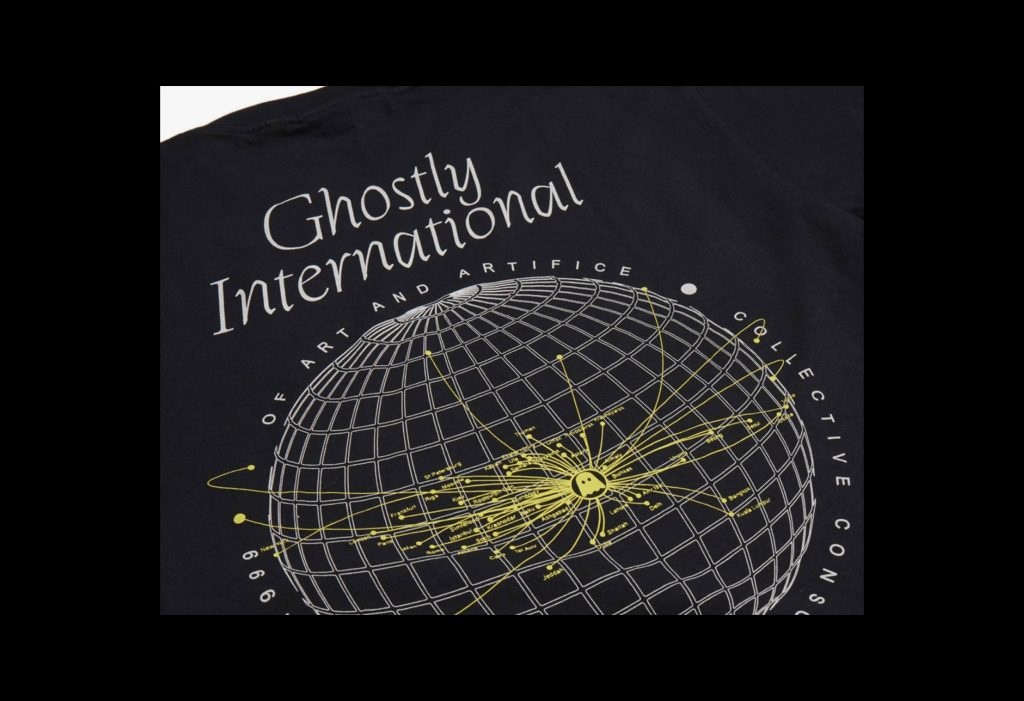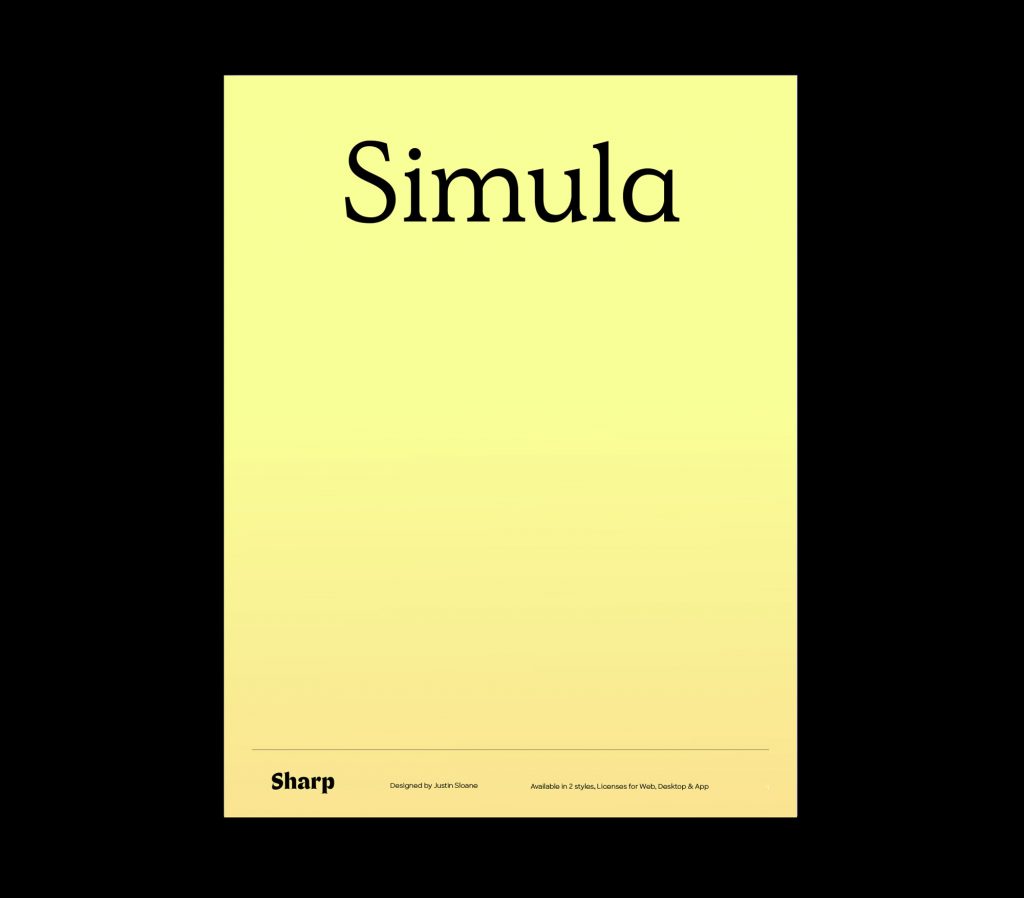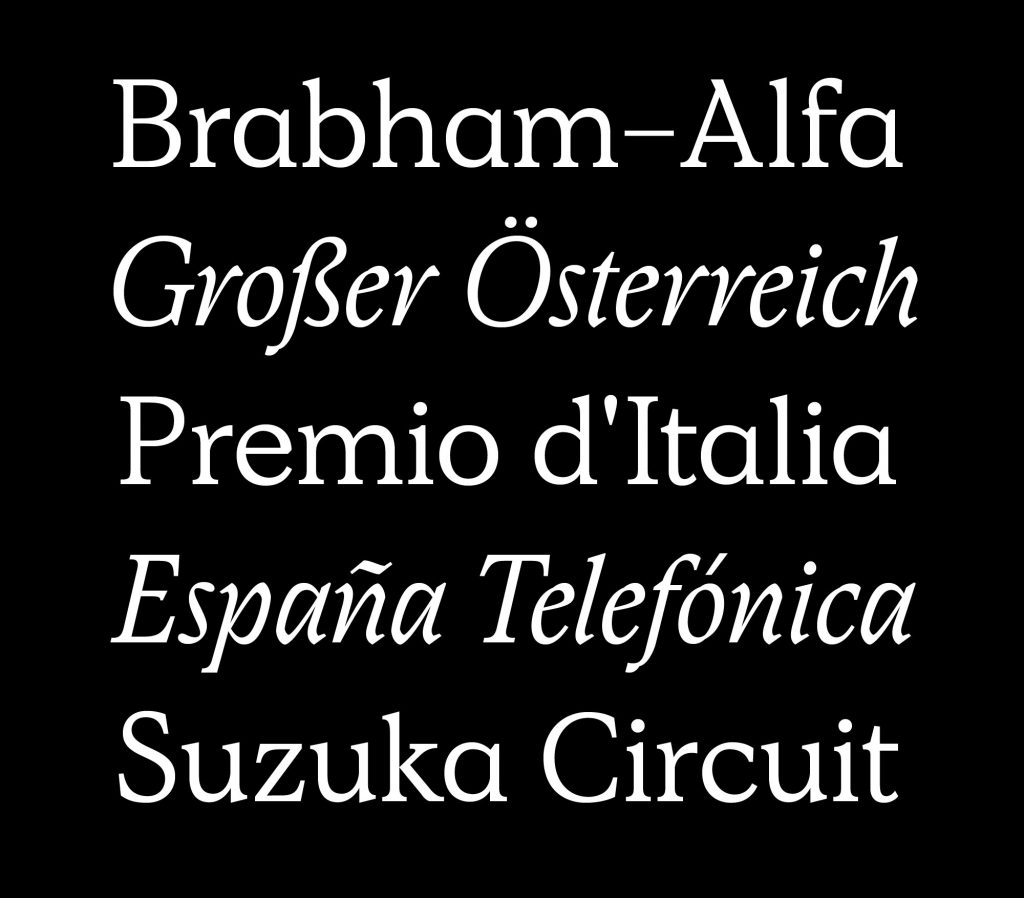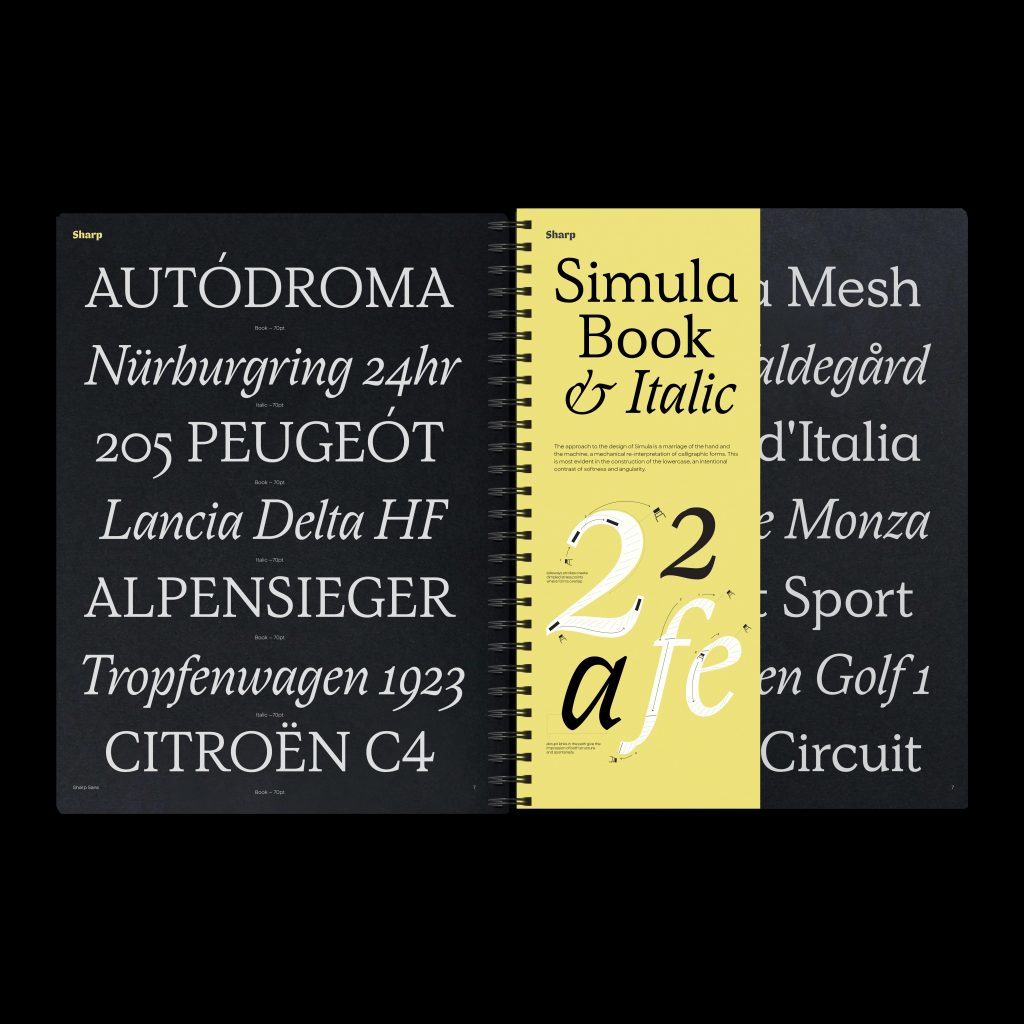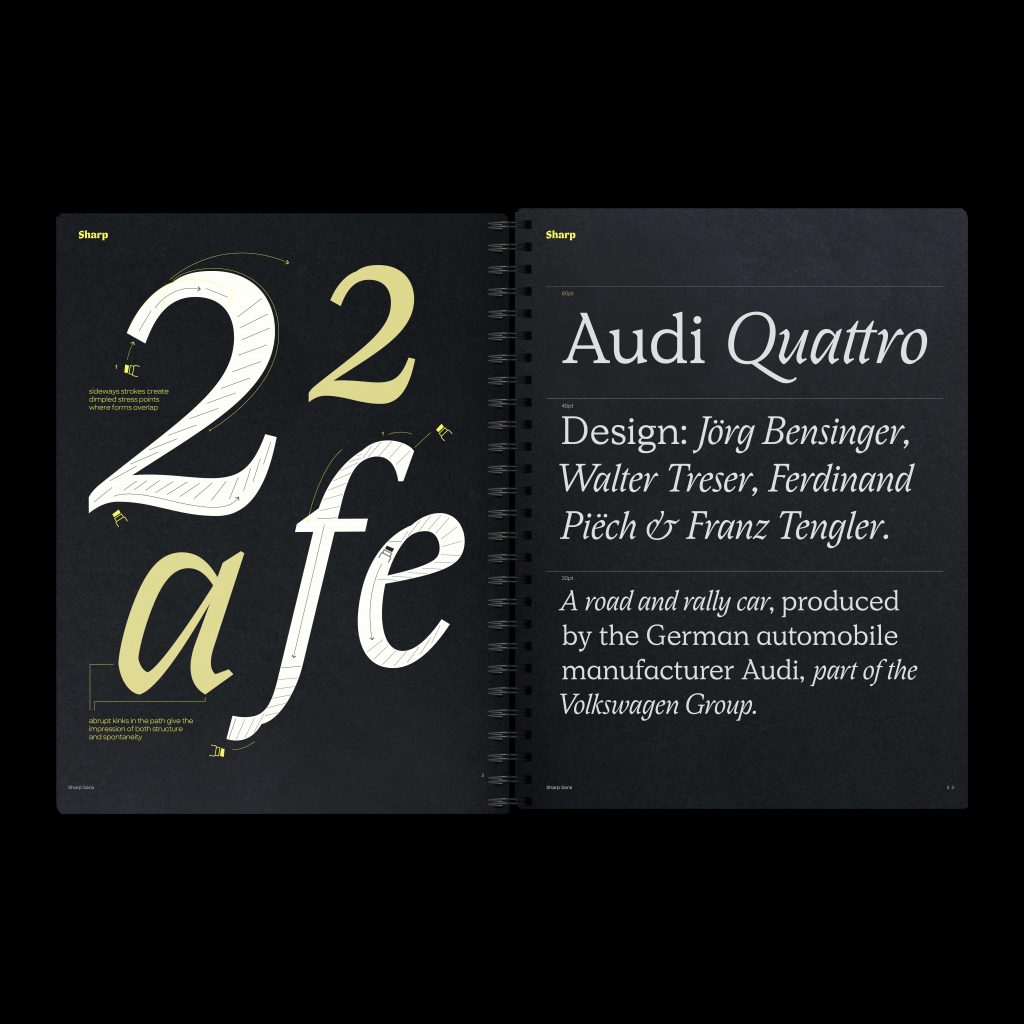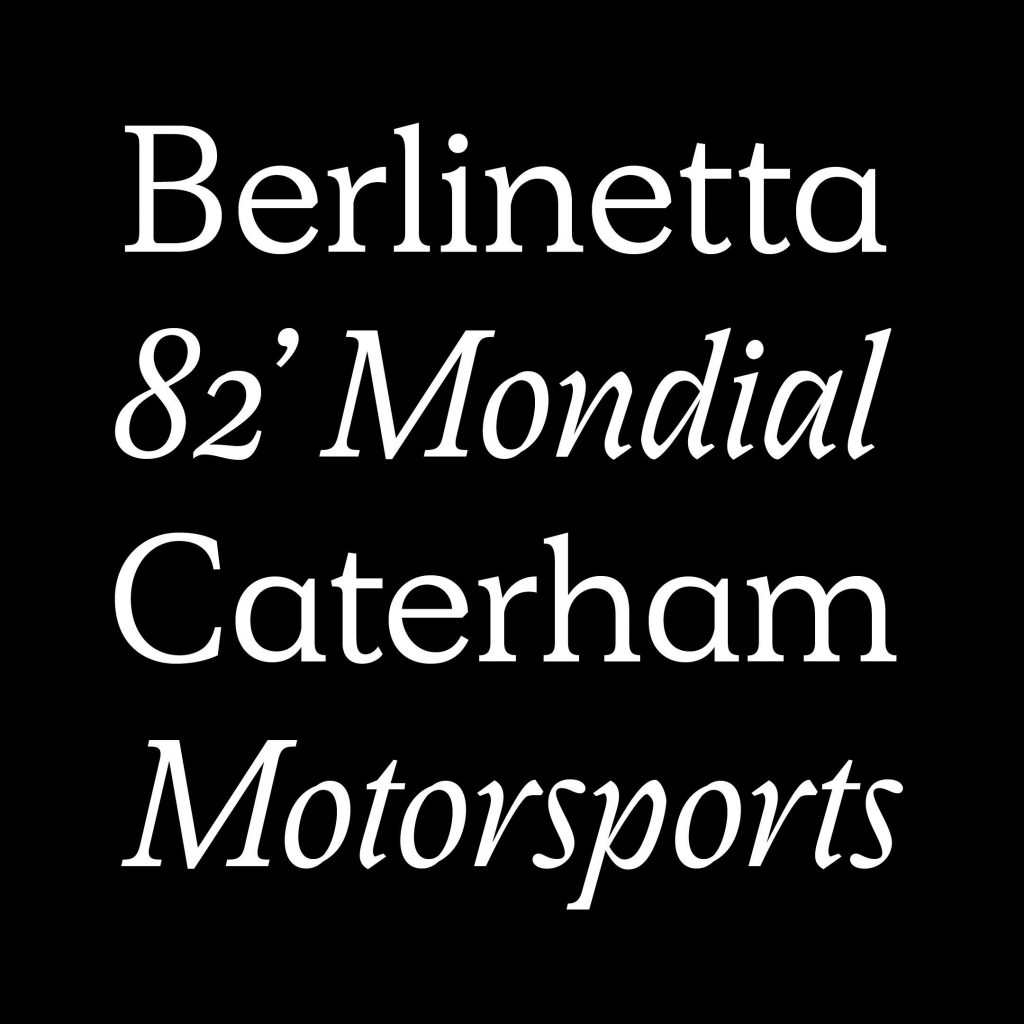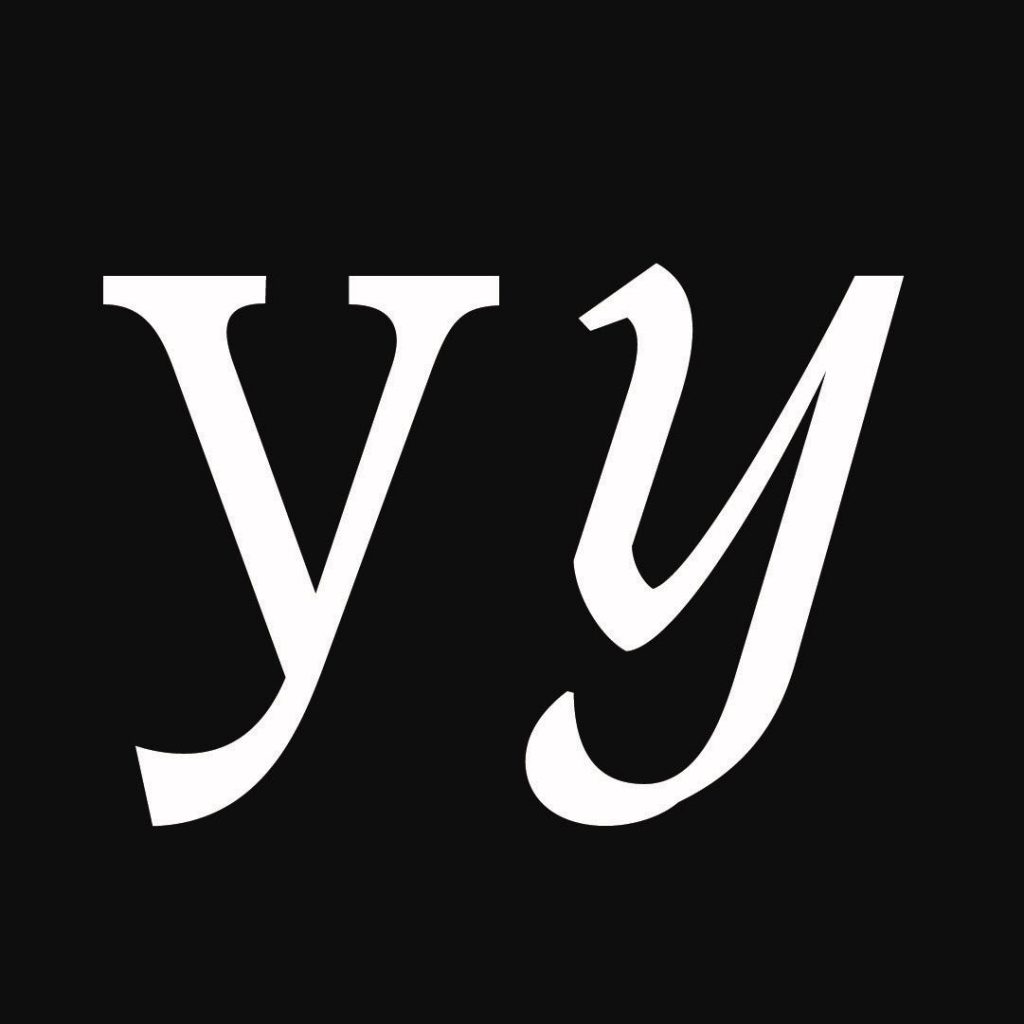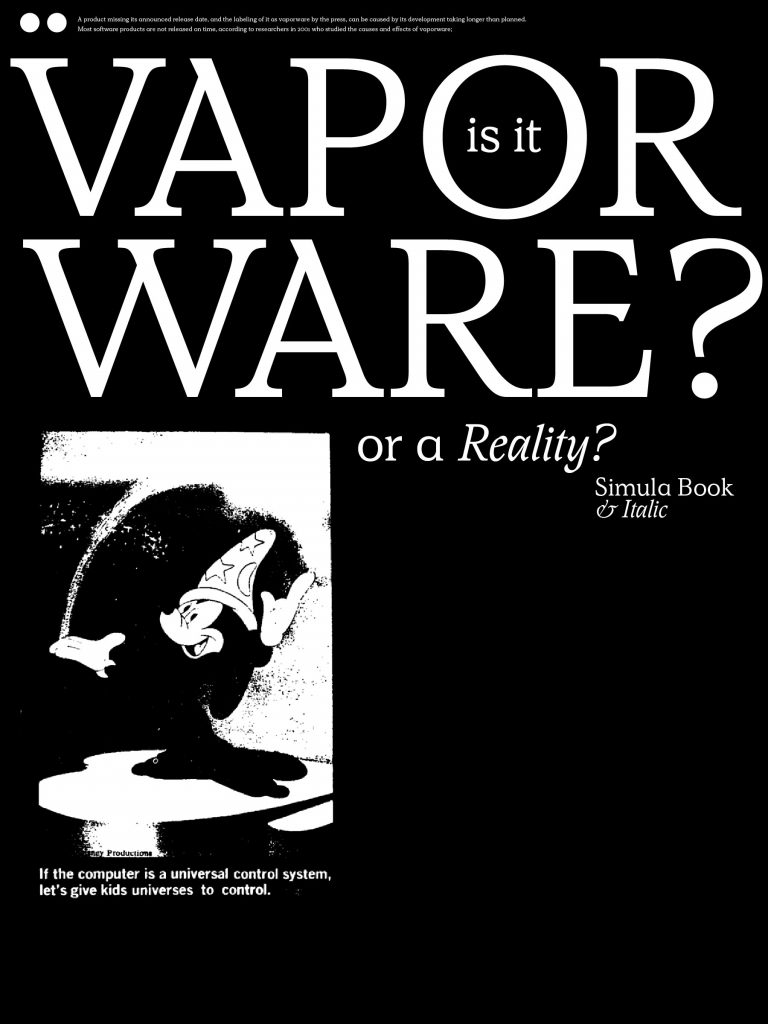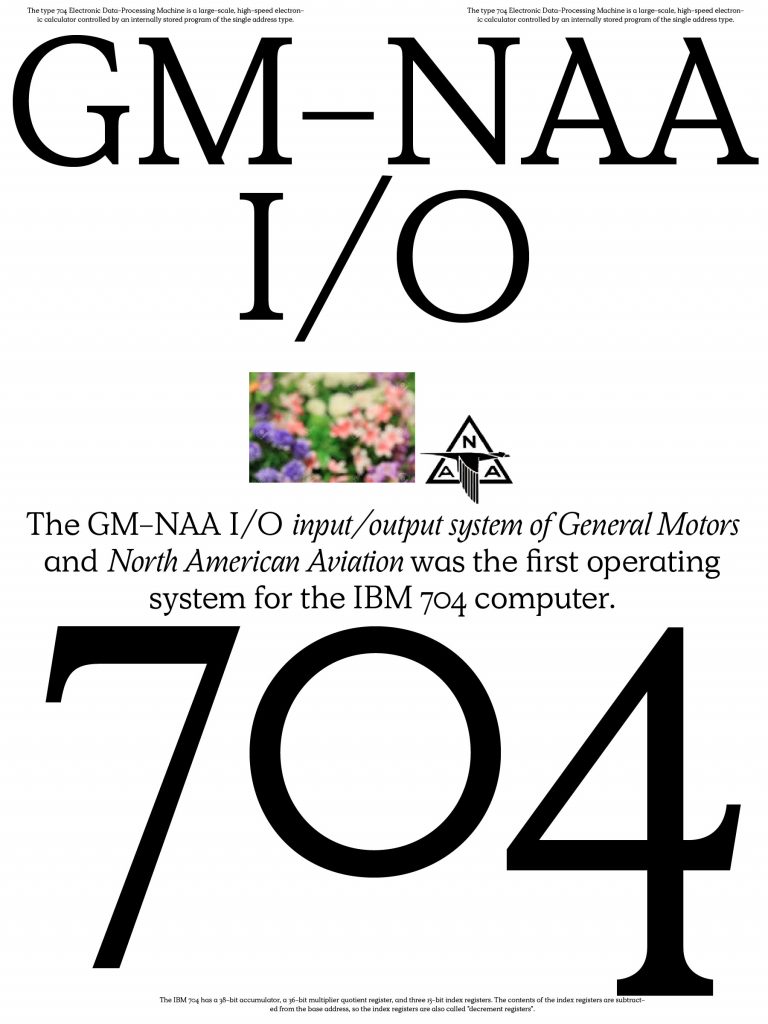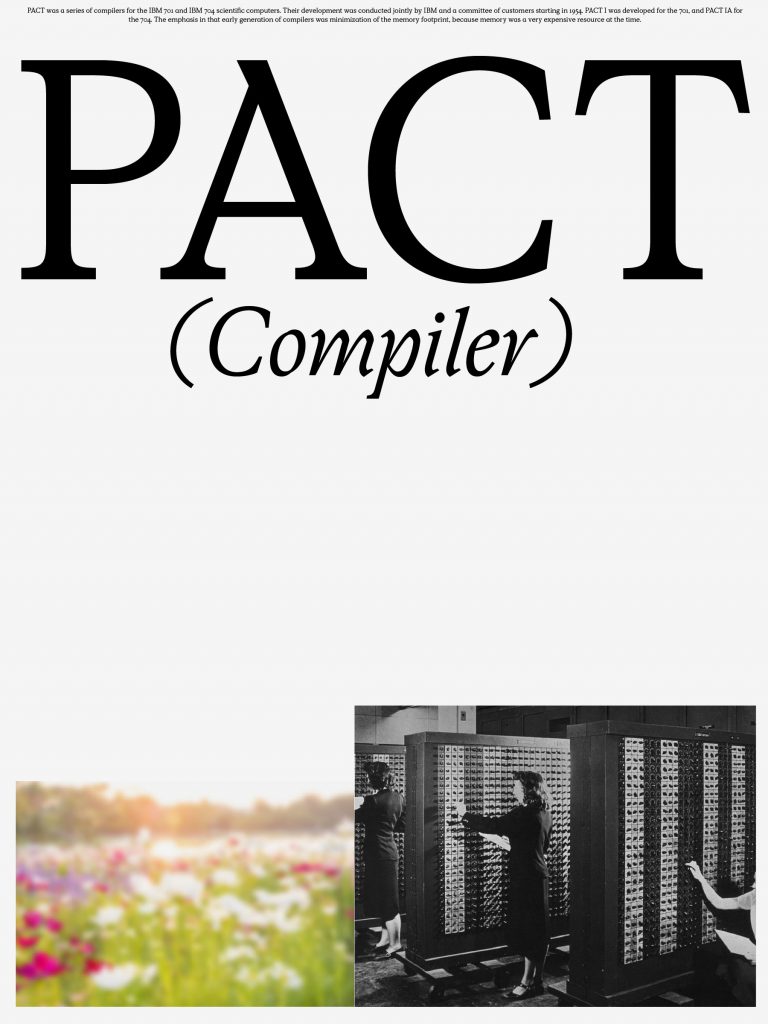
Name: Simula
Designer: Justin Sloane
Foundry: Sharp Type
Release Date: October 2019
Back Story: Justin Sloane was at a family reunion in Oregon, pinned up inside due to a forest fire, when he first started drawing Simula. The development of the full typeface, released this month from Sharp Type, is a lesson in endurance—Sloane worked on it during early mornings for years, as a “meditative thing,” using it in posters and various design projects at different phases. He put it on a T-shirt for record label Ghostly, created different specimens, lent it out to friends. “I used it as a vehicle to start learning how to draw typefaces,” he says. “I’ve done custom type and have dealt with letterforms a lot, but in dealing with type as a system and optimizing it for other people to use—I had to figure all of that stuff out.”
Sloane is a graphic designer who designed, among many other things, the Sharp Type identity and website. When it comes to type design, he considers himself an outsider, but he got some early encouragement from the foundry’s co-founder Lucas Sharp to make Simula into a full typeface. Sharp got him to experiment with different weights and offered critiques as the font got closer to completion. “I’m interested in drawing,” Sloane says, “and putting those drawings into a set of software to output to other people is what’s interesting to me [about developing a typeface].”
After four years of drawing and redrawing, the result is described as a “mechanical re-interpretation of calligraphic form,” with a significant contrast between the Roman and Italic.
What are its distinguishing characteristics? Simula started out as a slab serif—thick, geometrical, with monospaced proportions—but over the years Sloane slowly reversed course, molding it backwards into a traditional serif font. He began creating versions with more nuance, and incorporated calligraphy. “I kept returning to different fonts to figure out how to build those relationships,” says Sloane. He wanted Simula to have a sort of heaviness to it, to fill space—“I wanted to make something that’s more of a display, that’s workhorse oriented; what I was drawing was pretty big,” he says. “I also didn’t want it to seem too contemporary. I like the idea of it looking like it’s always been there.”
Simula has echoes of Plantin, a 1913 Monotype typeface designed by Christophe Plantin in 16th century Belgium for use in mechanical typesetting, and which would later become an influence for Times New Roman. On the other hand, Sloane also looked toward calligraphy, drawing influence from the rhythm of the letterforms. The Italic is made up of thick, precise, blocky strokes that looks like “calligraphy drawn with a fat marker,” to quote the Sharp Type description. The Roman and Italic are so distinct they almost don’t feel like the same font. “They sort of aggravate each other,” says Sloane. Because of this, the typeface is defined by tension and contrast, while somehow also giving off a sense of elegance and harmony.
Why’s it called Simula? It’s named for an obsolete programming language developed in the 1960s at the Norwegian Computing Center in Oslo. Sloane wanted it to feel like a dead language, and was looking into spoken and written languages before deciding to change course and look for a programming language no longer in use. “Adding a layer of technology to it felt right,” he says. “It’s a bit crude and simple, but I did it all digitally. I didn’t even print it out for few years.”
What should I use it for? Sloane says that so far a friend of his has used it in branding for a shoe company, but he’d like to see it used for all types of things, reflecting the variation within the typeface itself. “With most things, there’s an element of high and low with it,” he says. “You can use it in a way that’s kind of crude, but I’d also like seeing it used a hyper elegant context. It would be great if it could do both.”
What other typefaces do you like to pair it with? “Big heavy sans serifs,” says Sloane, “Eurostile, something that’s really blunt, extended.” Of course, you could also use the Roman and Italic of Simula together, for a seamless pairing.